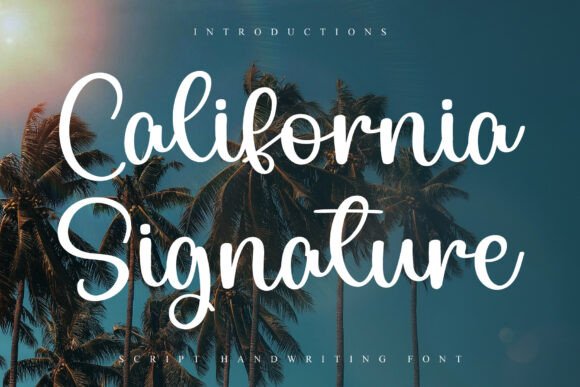
Introducing California Signature Font: The Ultimate Holiday Typeface
Are you looking for a font that captures the essence of the holiday season? Do you want to add a touch of magic to your Christmas cards, decorations, and other festive materials? Look no further than the California Signature Font, a festive and playful typeface that is sure to spread joy and cheer.
What is California Signature Font?
California Signature Font is a unique and enchanting typeface that is perfect for the holiday season. With its whimsical design and adorable swashes, this font is sure to add a touch of festive fun to any project. Whether you’re creating Christmas cards, decorations, or other holiday materials, California Signature Font is the perfect choice.
Key Features of California Signature Font
- Festive and Playful Design: California Signature Font features a festive and playful design that is perfect for the holiday season.
- Enchanting Swashes: The font comes with a range of enchanting swashes that add a touch of magic to your text.
- Whimsical and Fun: The font has a whimsical and fun design that is sure to bring a smile to anyone’s face.
Uses for California Signature Font
California Signature Font is a versatile typeface that can be used for a range of holiday projects, including:
- Christmas Cards: Add a touch of festive fun to your Christmas cards with California Signature Font.
- Holiday Decorations: Use the font to create festive decorations, such as garlands, banners, and signs.
- Social Media Posts: Add a touch of holiday magic to your social media posts with California Signature Font.
- Holiday Marketing Materials: Use the font to create festive marketing materials, such as flyers, brochures, and posters.
Benefits of Using California Signature Font
There are many benefits to using California Signature Font for your holiday projects, including:
- Unique and Festive Design: The font features a unique and festive design that is sure to stand out.
- Versatile: The font can be used for a range of holiday projects, from Christmas cards to holiday decorations.
- High-Quality: California Signature Font is a high-quality typeface that is sure to impress.
Tips for Using California Signature Font
Here are some tips for using California Signature Font:
- Use it Sparingly: Use California Signature Font sparingly to add a touch of festive fun to your project.
- Experiment with Different Sizes: Experiment with different sizes to find the perfect fit for your project.
- Pair it with Other Fonts: Pair California Signature Font with other fonts to create a unique and interesting look.
- Have Fun: Most importantly, have fun with California Signature Font and get creative!
- What is California Signature Font?: California Signature Font is a festive and playful typeface adorned with enchanting swashes.
- Is California Signature Font PUA encoded?: Yes, California Signature Font is PUA encoded, which means you can access all of the amazing glyphs and ligatures with ease.
- What can I use California Signature Font for?: California Signature Font can be used for a range of holiday projects, including Christmas cards, decorations, social media posts, and holiday marketing materials.